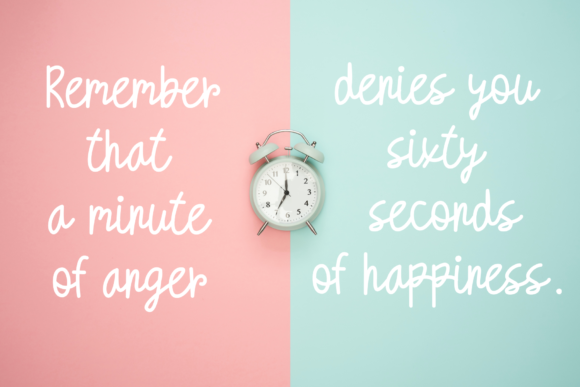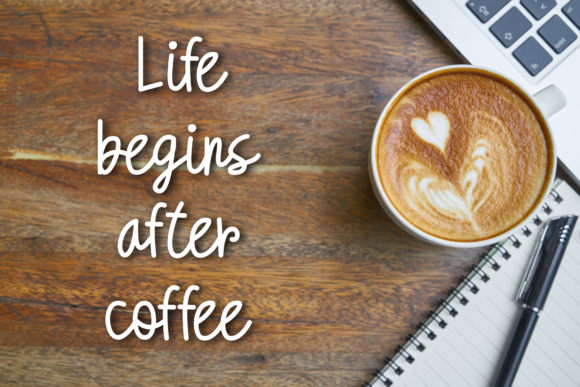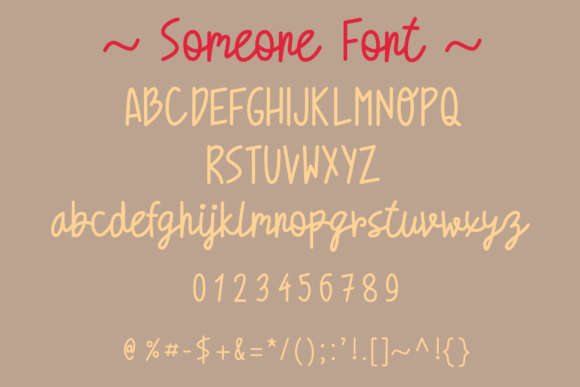
About Someone Font
Someone is a sweet and natural handwritten font. Dainty and joyful, this font will be ideal for writing wedding invitations, cards or any other design that may need a romantic, personalized touch!